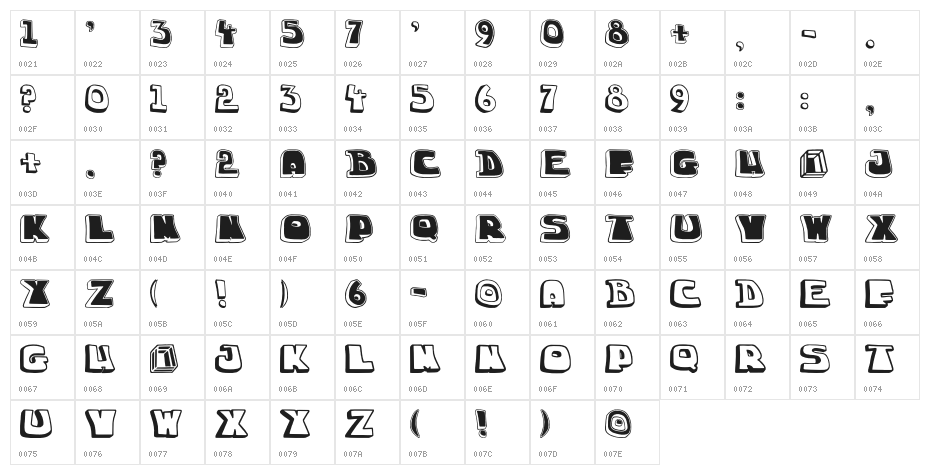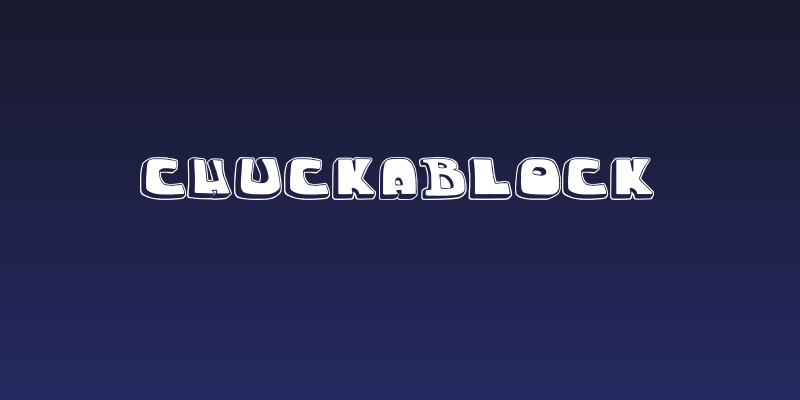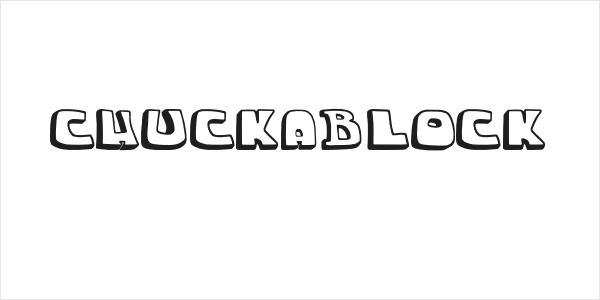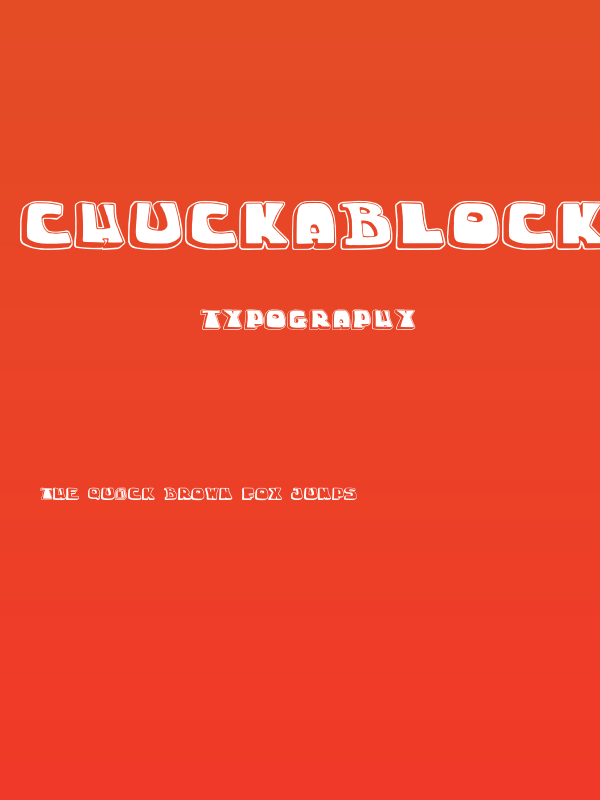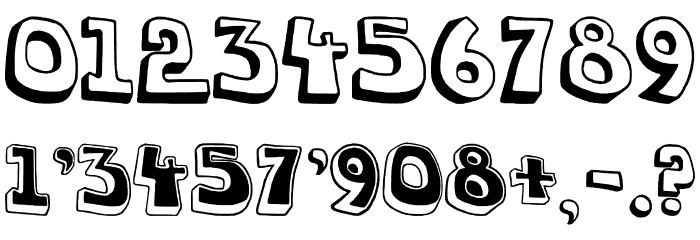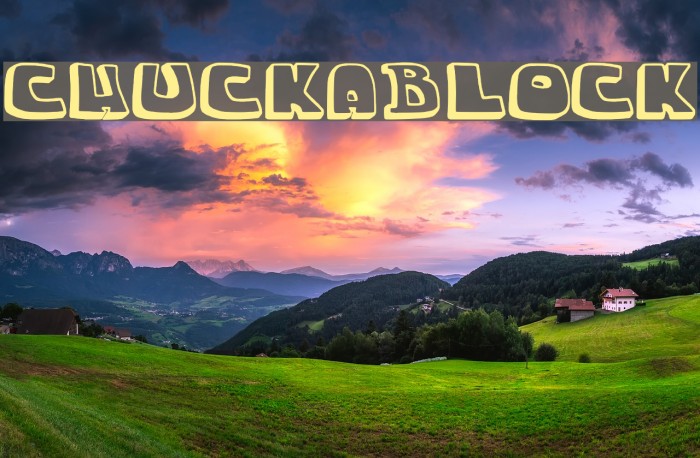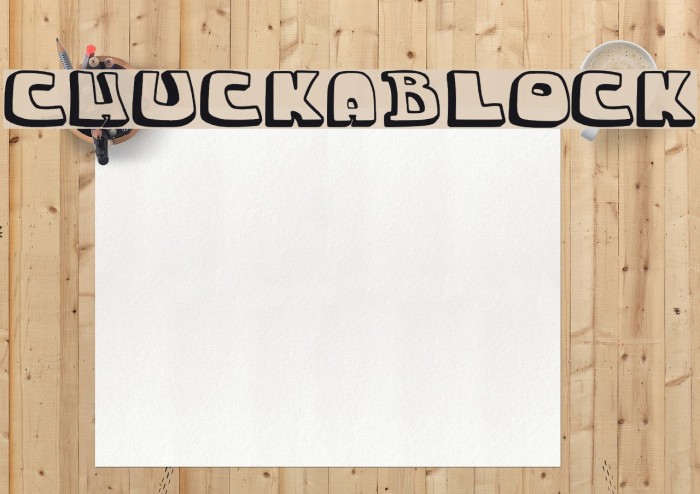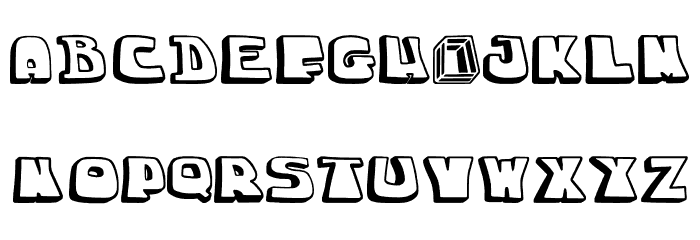
chuckablock Font
chuckablock Description
This font features a bold, playful design with a three-dimensional effect that gives each character a block-like appearance. The letters are uppercase and have a chunky, robust form, making them stand out prominently. The edges are rounded, adding a friendly and approachable feel. The numbers and special characters maintain the same blocky style, ensuring consistency across all elements. This font is ideal for projects that require a fun and engaging visual impact, such as children's books, posters, or playful branding.
| Overall Style | Playful, Fun, Engaging |
| Proposed Projects | Ideal for children's books, playful posters, and engaging branding. |